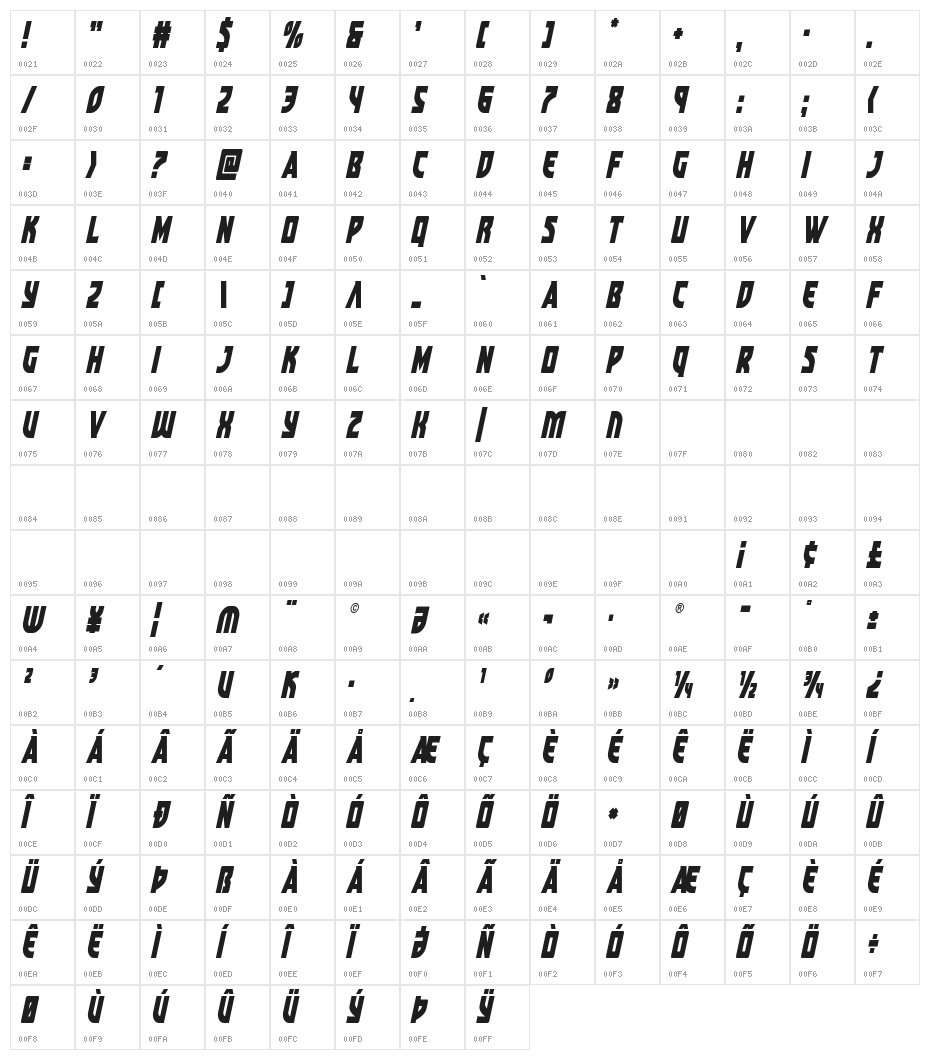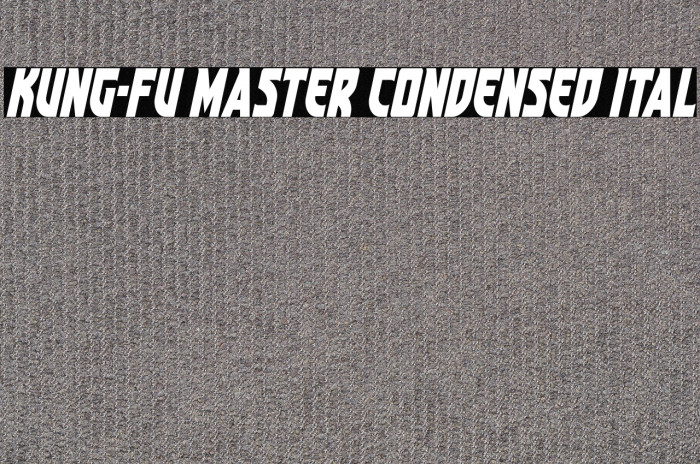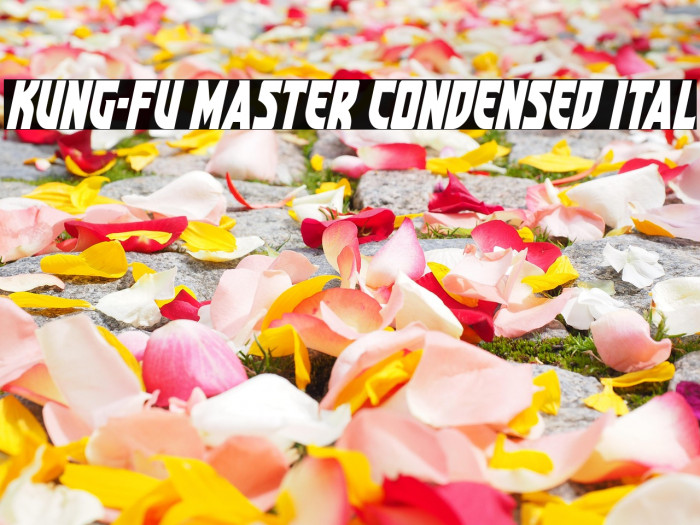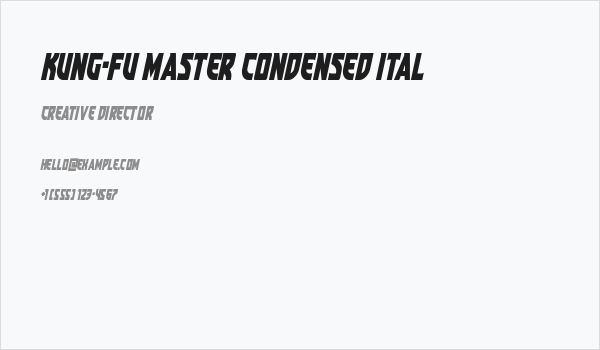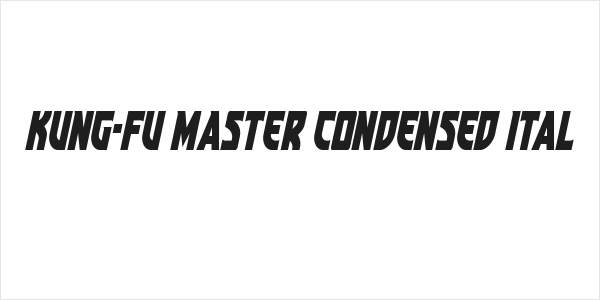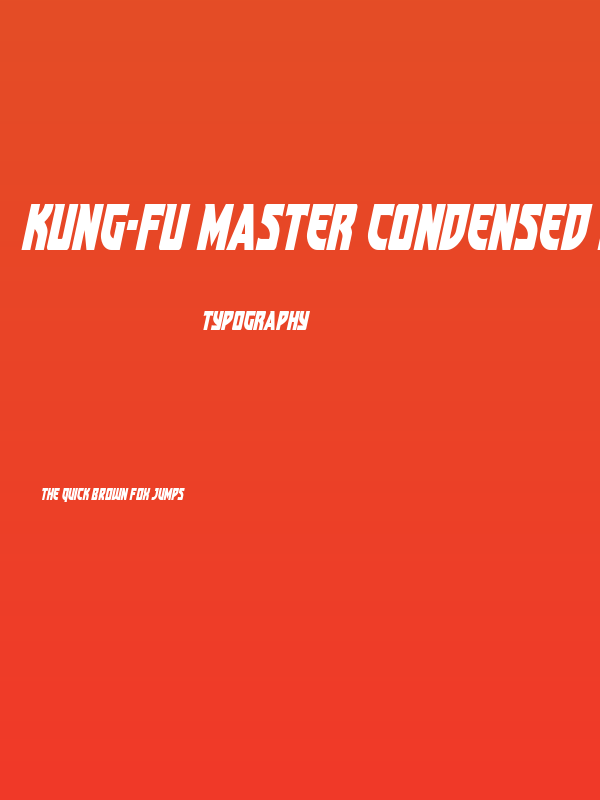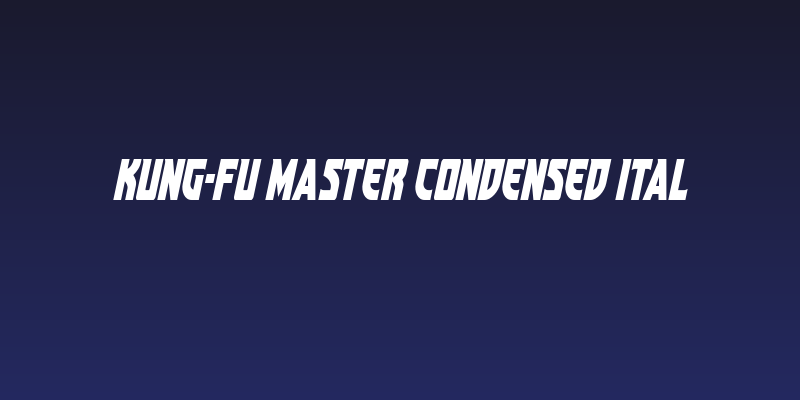
Kung-Fu Master Condensed Ital Font
Kung-Fu Master Condensed Ital Description
This font features a bold and dynamic style with a condensed and italicized form. The characters are sharply angled, giving a sense of movement and energy. The strokes are thick and consistent, contributing to a strong visual impact. The uppercase and lowercase letters maintain a uniform height, enhancing the condensed appearance. The numerals and special characters are designed to match the boldness and angularity of the alphabet, ensuring a cohesive look across all elements. This font is ideal for projects that require a striking and energetic typeface.